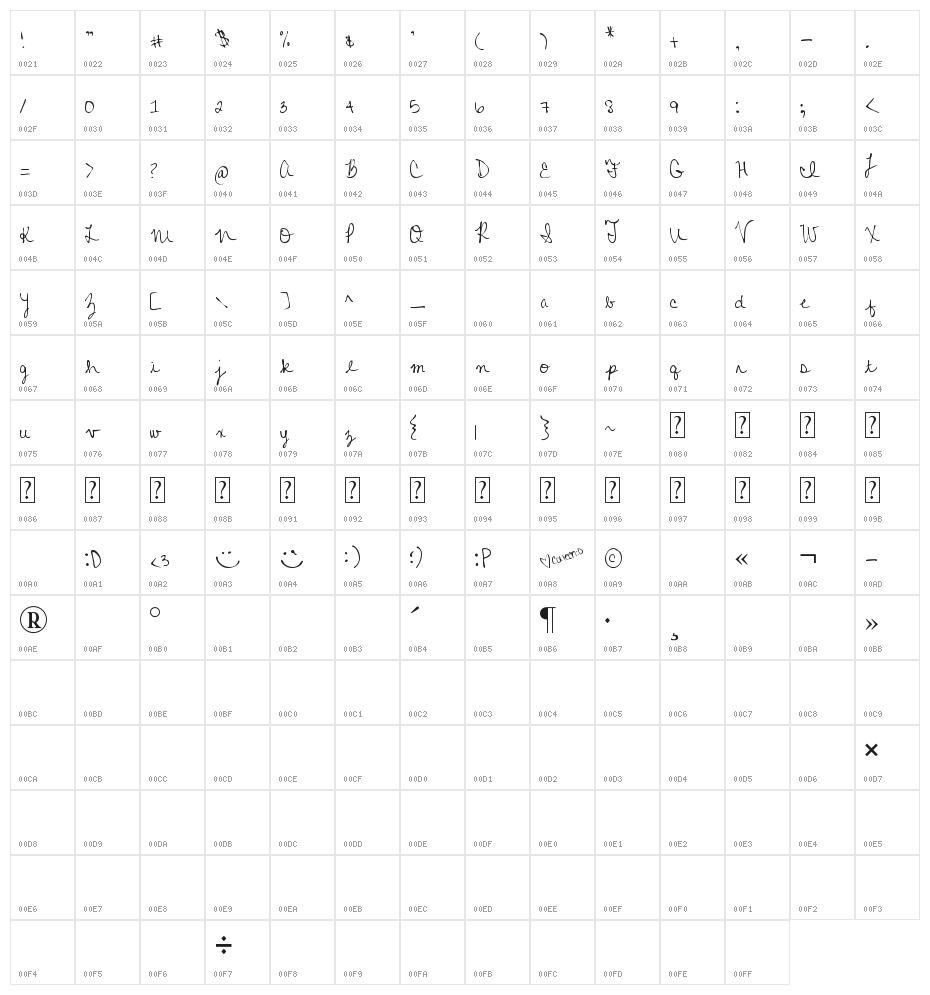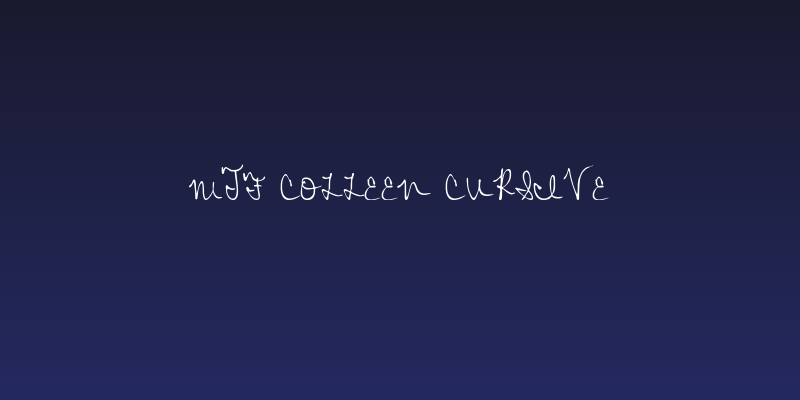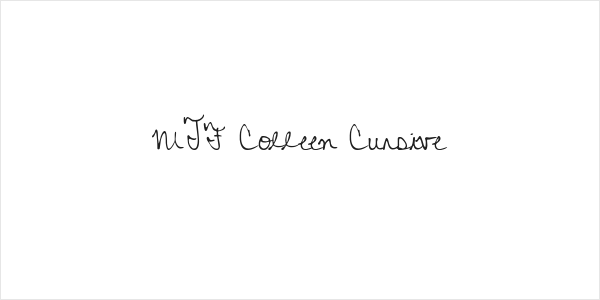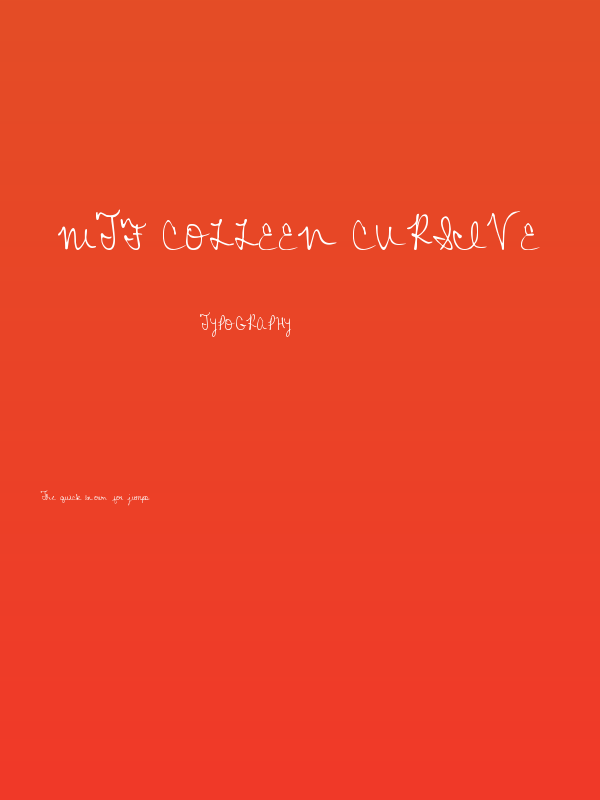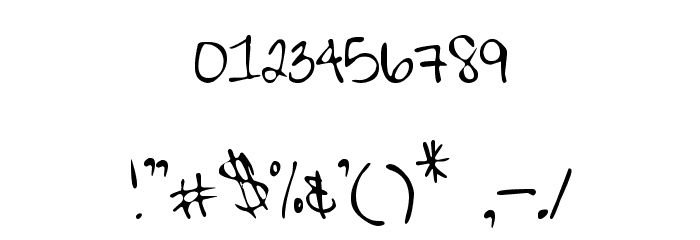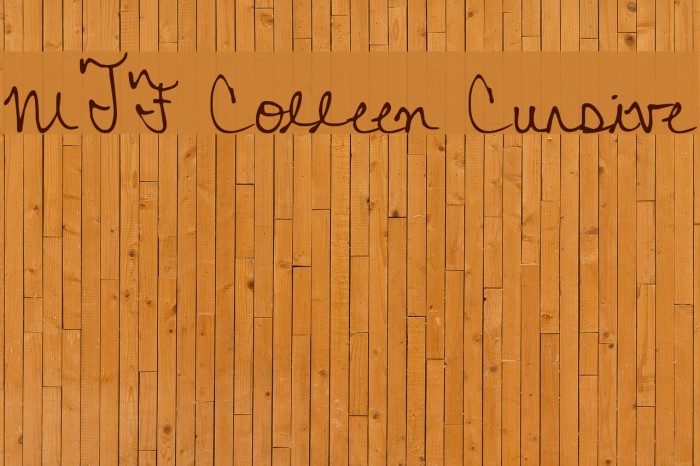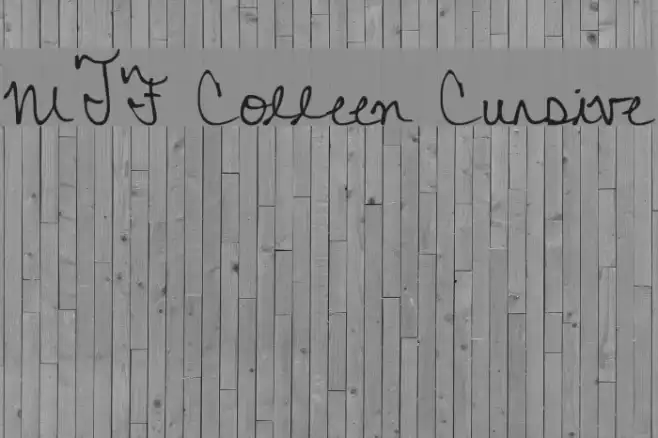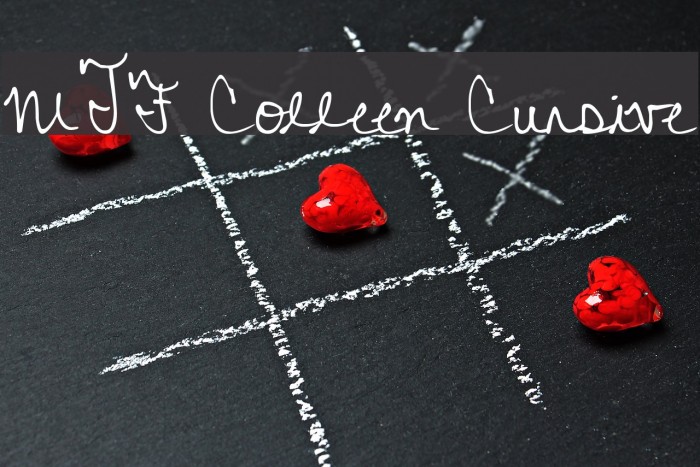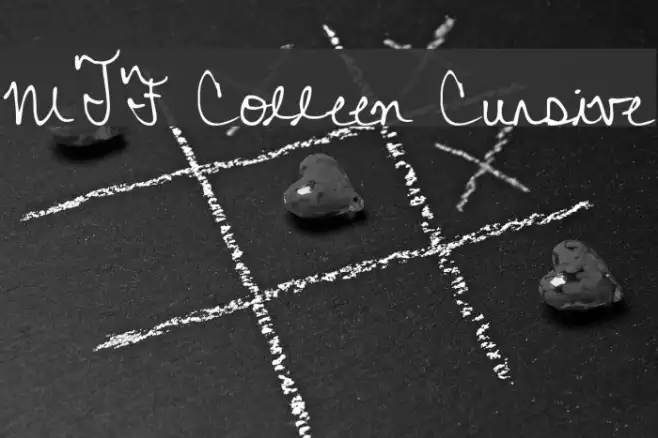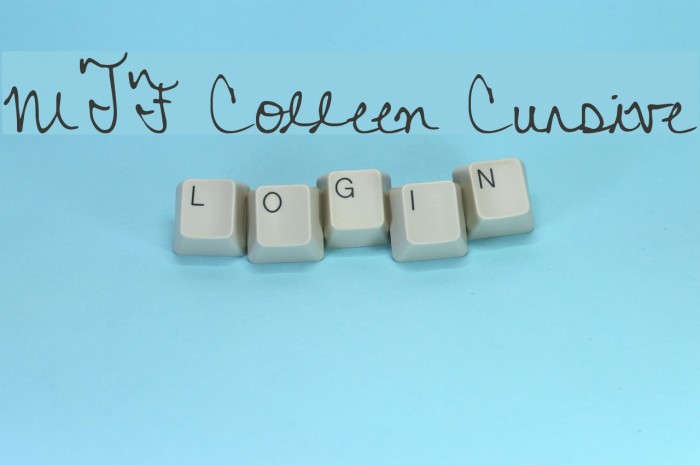
MTF Colleen Cursive Font
MTF Colleen Cursive Description
This font features a playful and flowing cursive style, characterized by its handwritten appearance. The letters are connected in a fluid manner, giving it a natural and organic feel. The uppercase letters are slightly more elaborate, with unique loops and curves that add a touch of elegance. The lowercase letters maintain a consistent style, with smooth transitions between each character. Numbers and special characters are designed to match the overall aesthetic, ensuring a cohesive look across all text. This font is ideal for projects that require a personal touch or a sense of whimsy.